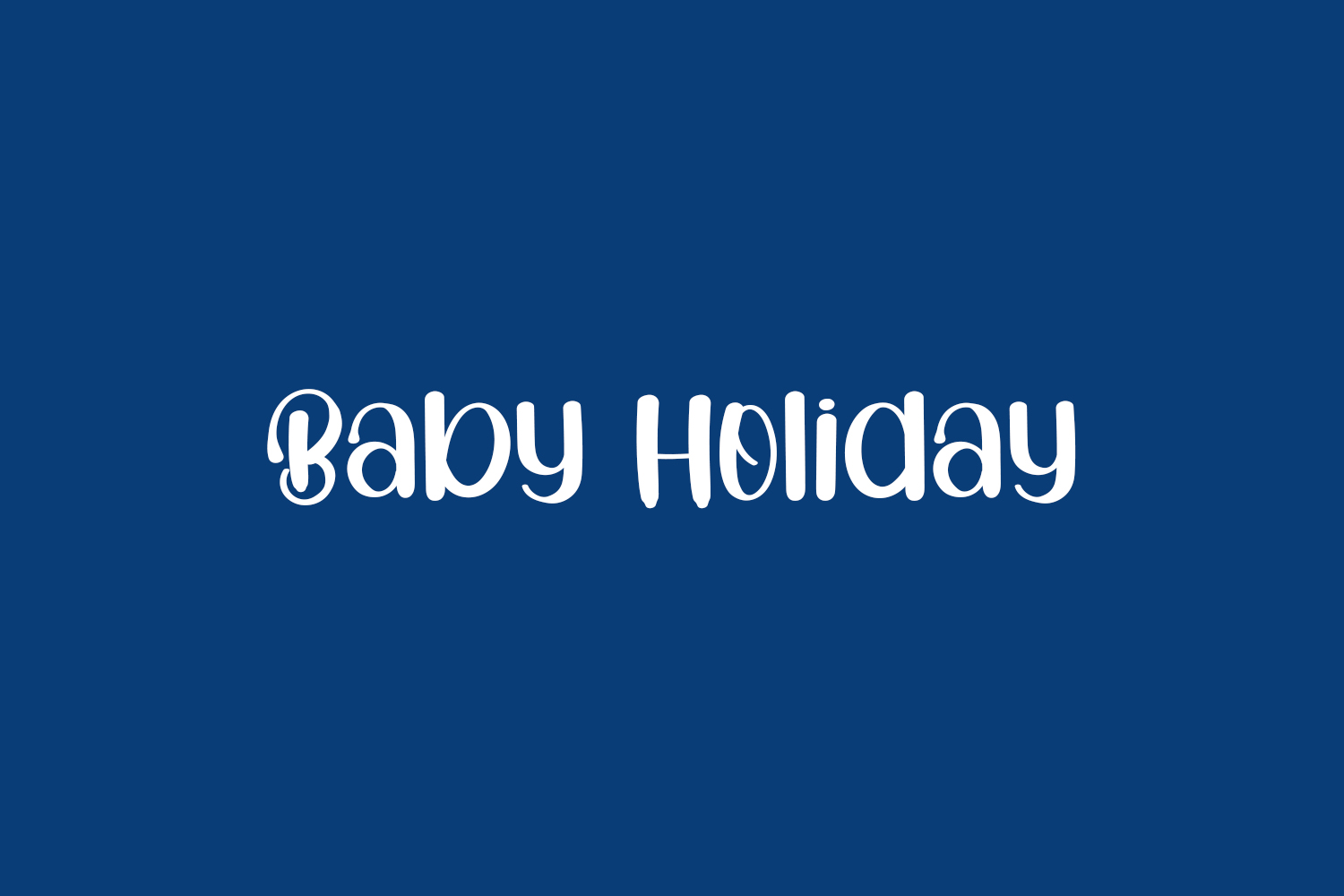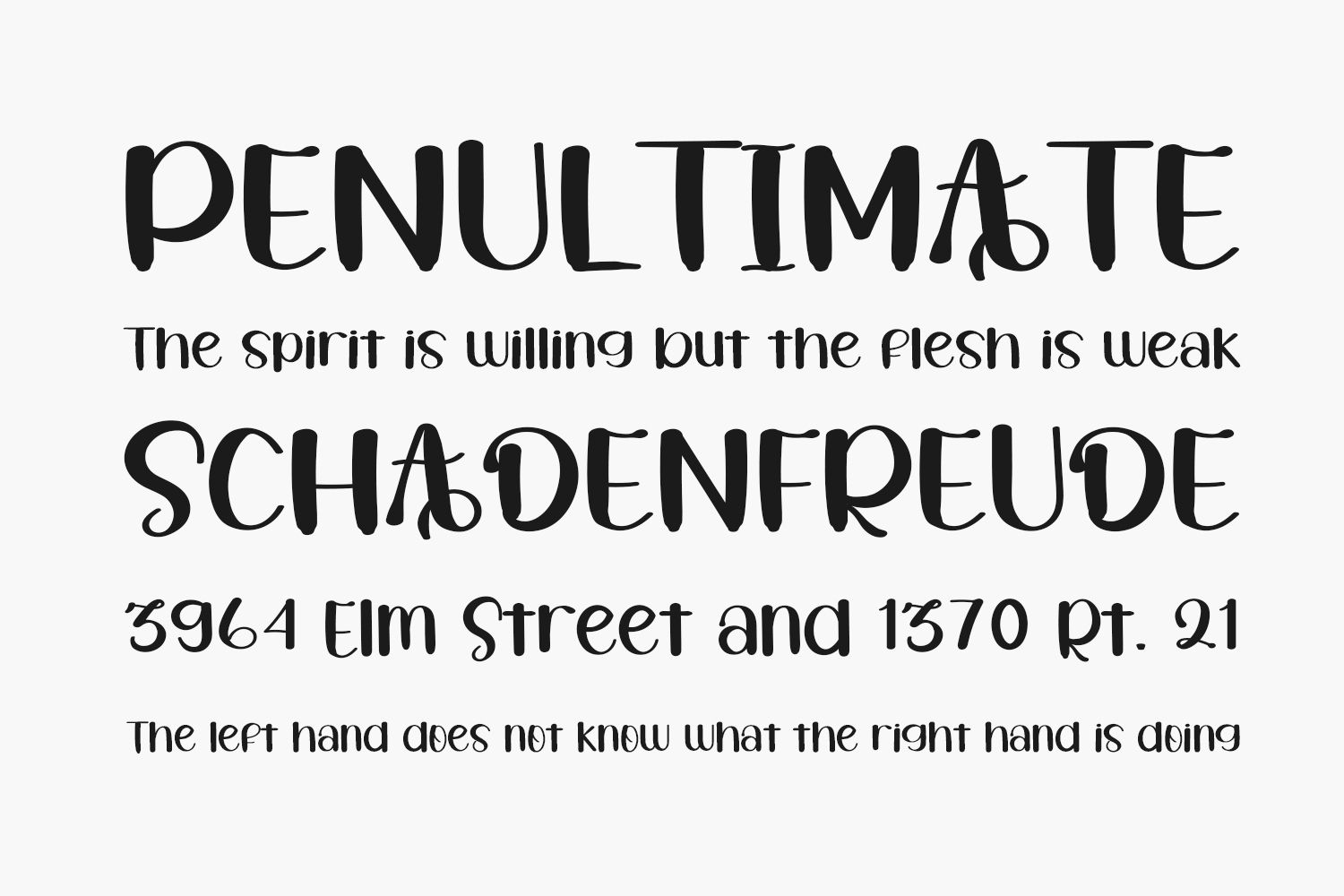
Baby Holiday Free Font is a beautiful and charming handwritten font. It is suitable for your various business needs, including shirt designs, logos, banners, and others. Apart from that, this font is easy to use on Windows and Mac OS devices. The beauty of this font will make your business look beautiful in the market. Baby Holiday Free Font was designed by Inermedia Studio and is free for personal use only. Please purchase the full version for commercial use.
Designed by Inermedia Studio